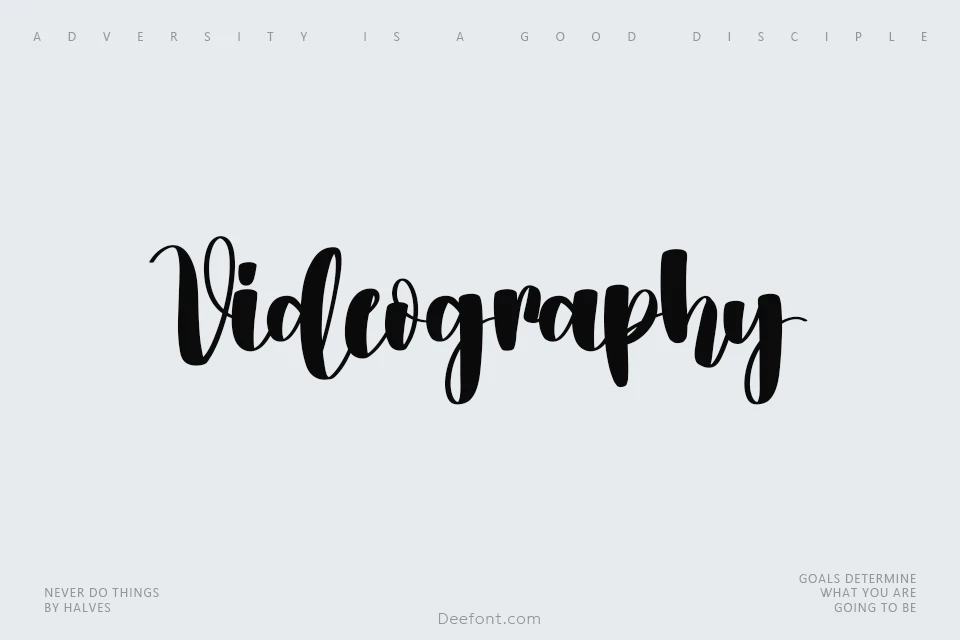
Videography Font
Videography Font is a playful and expressive hand-painted brush font characterized by its beautiful creative strokes. This versatile typeface strikes a perfect balance between formal and informal aesthetics, making it suitable for various creative applications. Its distinctive brushwork adds a personal touch that works exceptionally well for wall displays, wedding invitations, social media posts, logos, product packaging, labels, photography watermarks, and stationery. The font supports 35 languages and can be used for non-commercial projects, offering creators a dynamic tool to enhance their visual communications with an authentic, handcrafted feel.